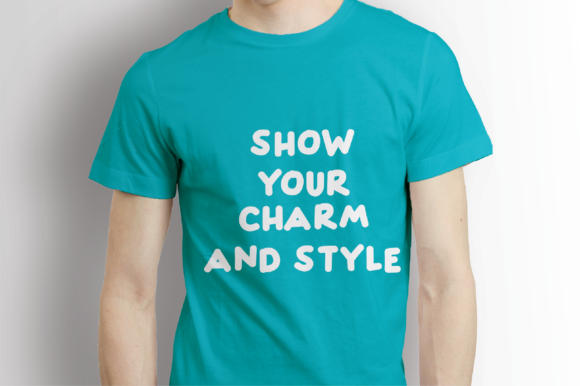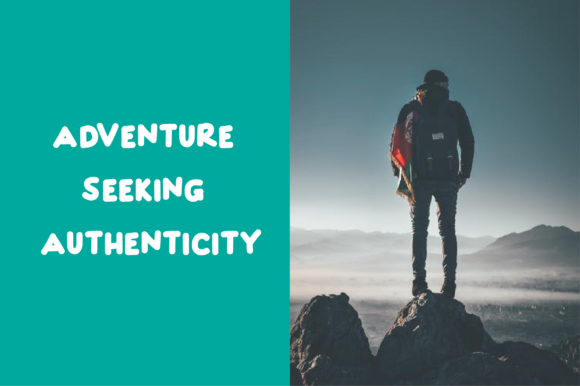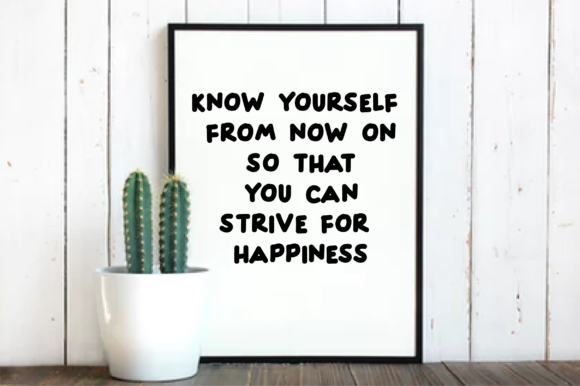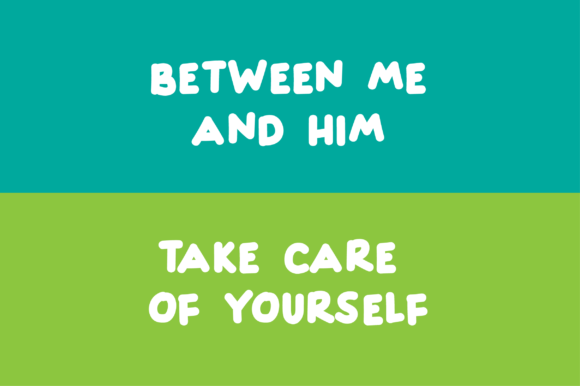
Unlock the Sweetest Inspiration with Candy Happiness Font
Have you ever been stuck in a creative rut, staring blankly at a blank page or screen, desperate for a spark of inspiration? It’s a familiar feeling for many designers, and one that can be frustrating and daunting. But what if I told you there’s a way to break through that creative block and tap into a font that’s as sweet as it is stylish?
Enter the Candy Happiness Font, a delightful display font that’s bursting with whimsy and charm. This font is designed to bring a smile to your face and a spring to your step, making it the perfect addition to any design project. Whether you’re creating a logo, social media graphic, or marketing campaign, the Candy Happiness Font is sure to bring a touch of magic to your work.
Candy Happiness Font Key Features
- Font Family: Candy Happiness is a unique, hand-drawn font designed to evoke feelings of happiness and playfulness.
- Unique Characteristics: Features a mix of rounded and angular shapes, creating a whimsical and eye-catching effect that is perfect for adding a touch of fun to designs.
Candy Happiness Font Review
At first glance, the Candy Happiness Font screams fun and playfulness. I love how it brings a touch of whimsy to any project it’s used in ✨. The font’s irregular shapes and bold lines make it perfect for creating eye-catching headings and titles. It’s also incredibly versatile, working well in both digital and print designs.
One of the things I appreciate about this font is its unique character set. The font includes a wide range of symbols and icons, making it easy to add an extra layer of personality to your designs ✨. From candy-themed emojis to abstract shapes, the possibilities are endless.
While the Candy Happiness Font is a lot of fun to work with, there are some limitations to be aware of ⚠️. The font can be quite busy, which may make it difficult to read in certain situations. Additionally, some of the characters may not be as legible at smaller font sizes.
Here are some specific limitations to consider:
- The font’s irregular shapes can make it difficult to use for body text or long blocks of text.
- Some characters may not be available in all languages.
- The font may not be suitable for formal or professional designs.
The Candy Happiness Font is a great choice for designers looking to add a touch of personality to their projects. While it may have some limitations, its unique character set and versatility make it a valuable addition to any design toolkit. With the right use cases, this font can add a pop of fun and whimsy to even the most mundane designs ✨.
For best results, use Candy Happiness Font in bold or italic styles to add emphasis to your text. You can also pair it with other fonts to create a unique and playful look. Experiment with different font sizes and colors to find the perfect combination for your project.
Candy Happiness Font is perfect for creating playful and eye-catching designs for children’s products, birthday parties, or other fun events. It can also be used for social media graphics, advertising, and packaging designs where a sweet and cheerful tone is desired.